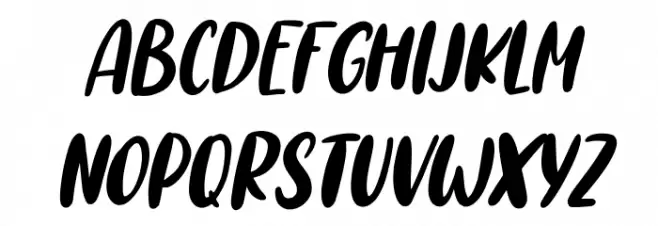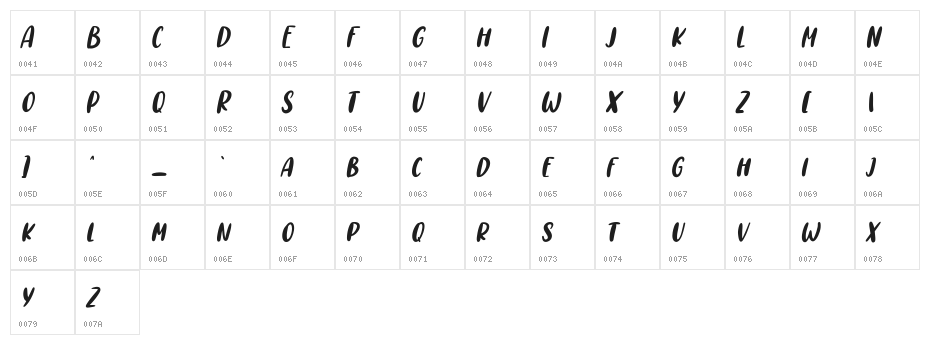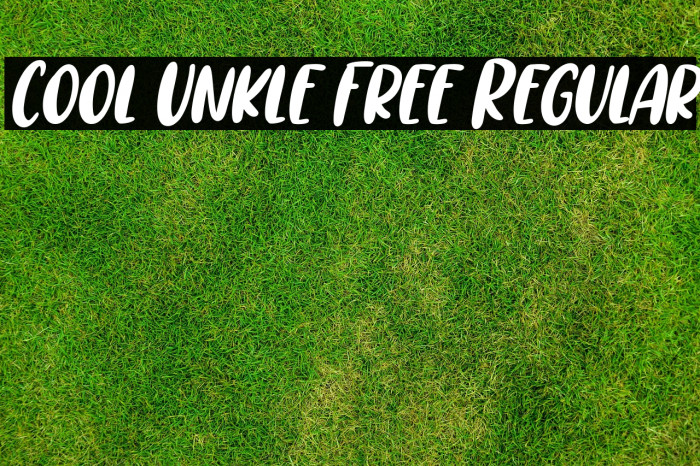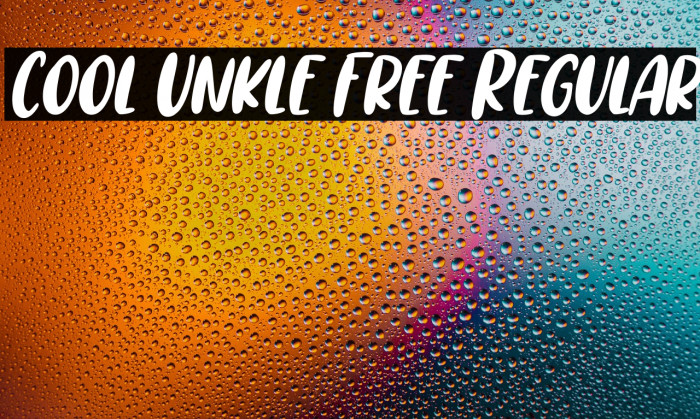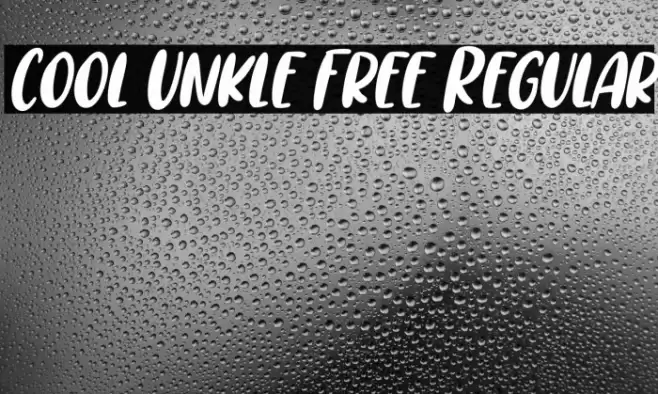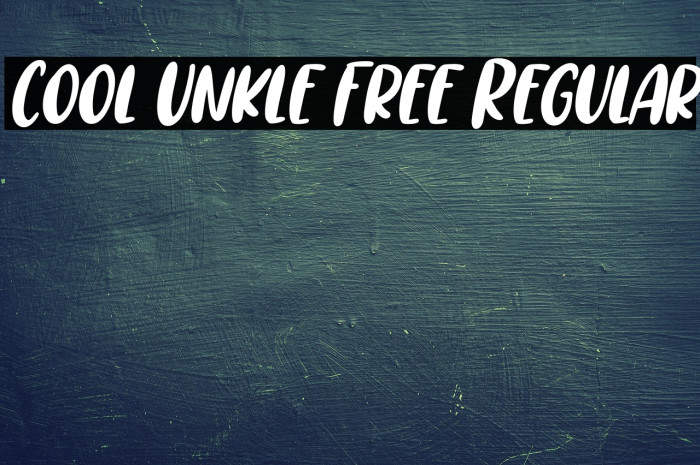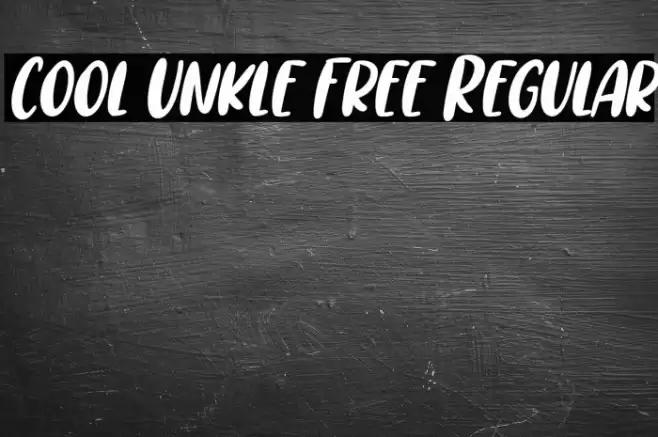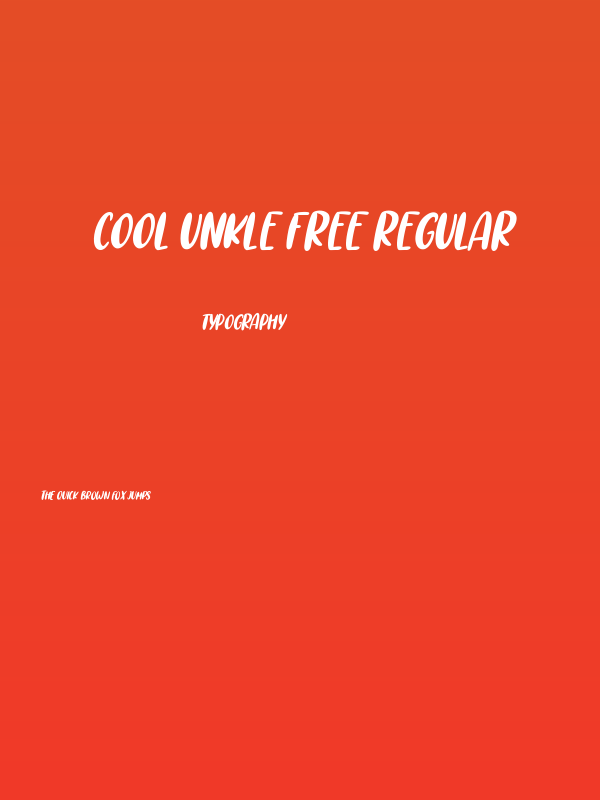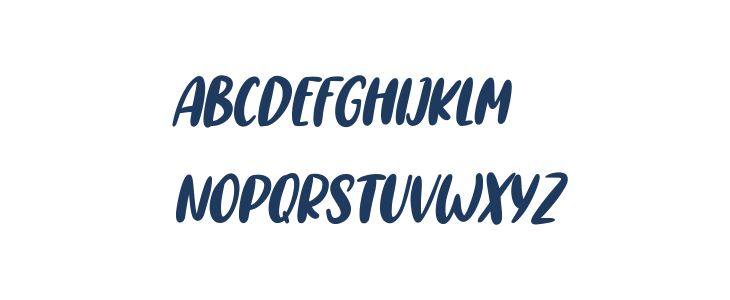
Cool Unkle Free Regular Font
Cool Unkle Free Regular Description
This font features a bold, playful style with a handwritten appearance. The letters are slightly slanted, giving a dynamic and energetic feel. The strokes are thick and consistent, providing a strong visual impact. The rounded edges add a friendly and approachable character, making it suitable for informal and creative projects. The uppercase and lowercase letters maintain a cohesive look, with a slight variation in size and shape that enhances its casual charm. The overall design is modern and expressive, perfect for capturing attention.